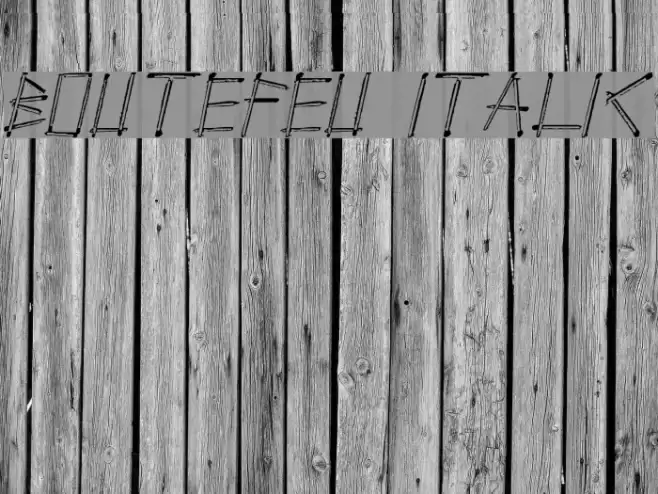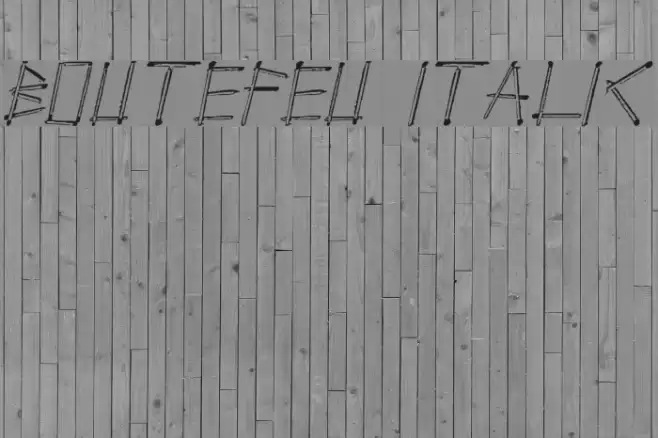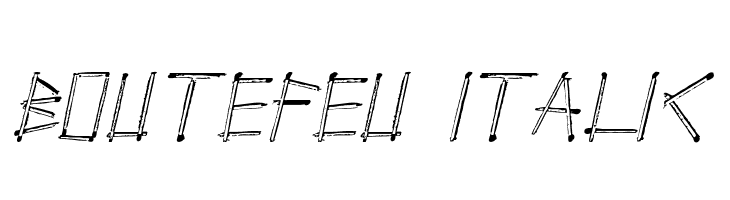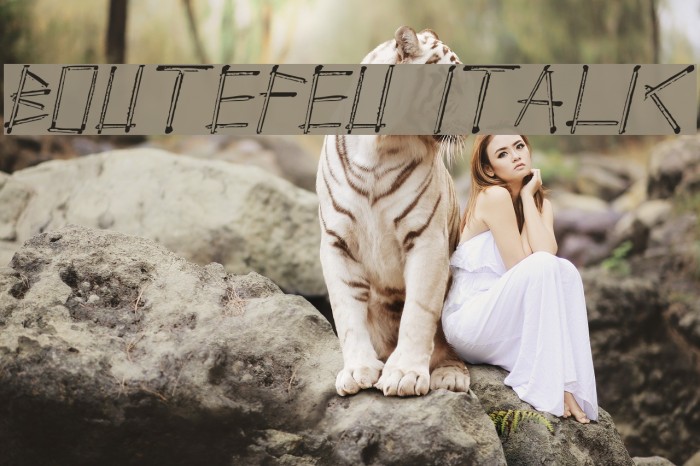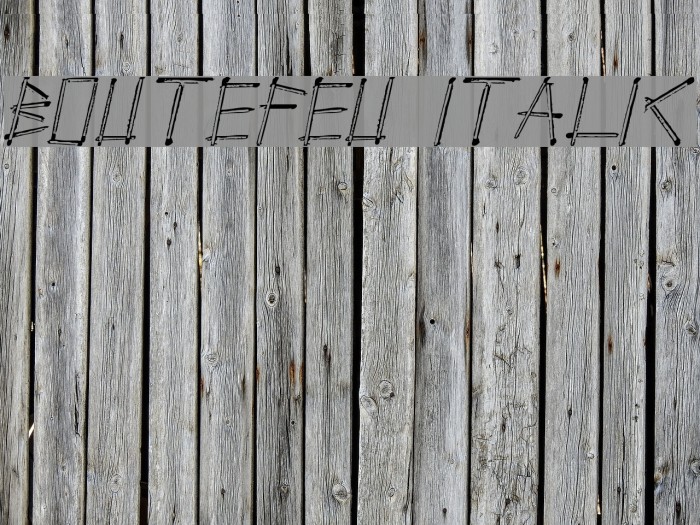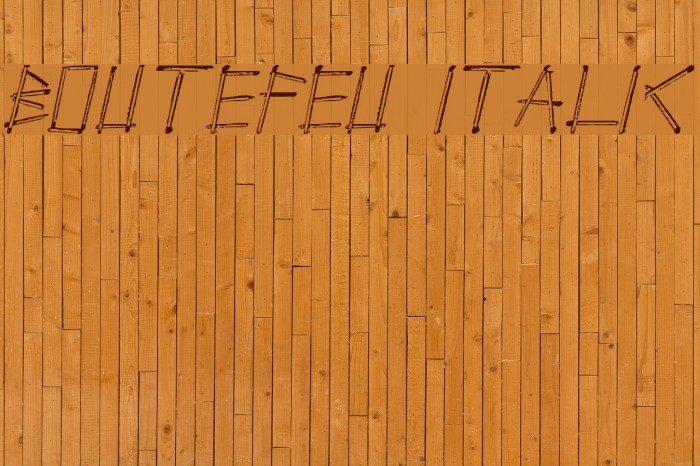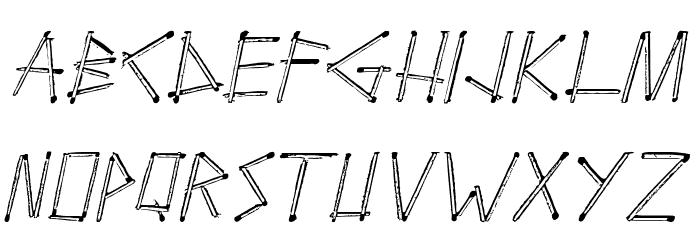
Boutefeu Italic Font
Boutefeu Italic Description
This font features a unique and playful design, reminiscent of matchsticks arranged to form letters. Each character is constructed with a series of lines and dots, giving it a handcrafted and artistic appearance. The strokes are consistent in thickness, contributing to a uniform look across all characters. The font maintains a sense of whimsy and creativity, making it stand out as a decorative choice. Its distinct style is both eye-catching and memorable, suitable for projects that require a touch of originality and flair.
A playful, matchstick-inspired decorative font with uniform stroke thickness from Decorative fonts.
- Proposed Projects: Ideal for creative projects such as posters, children's book covers, or branding for artistic ventures.